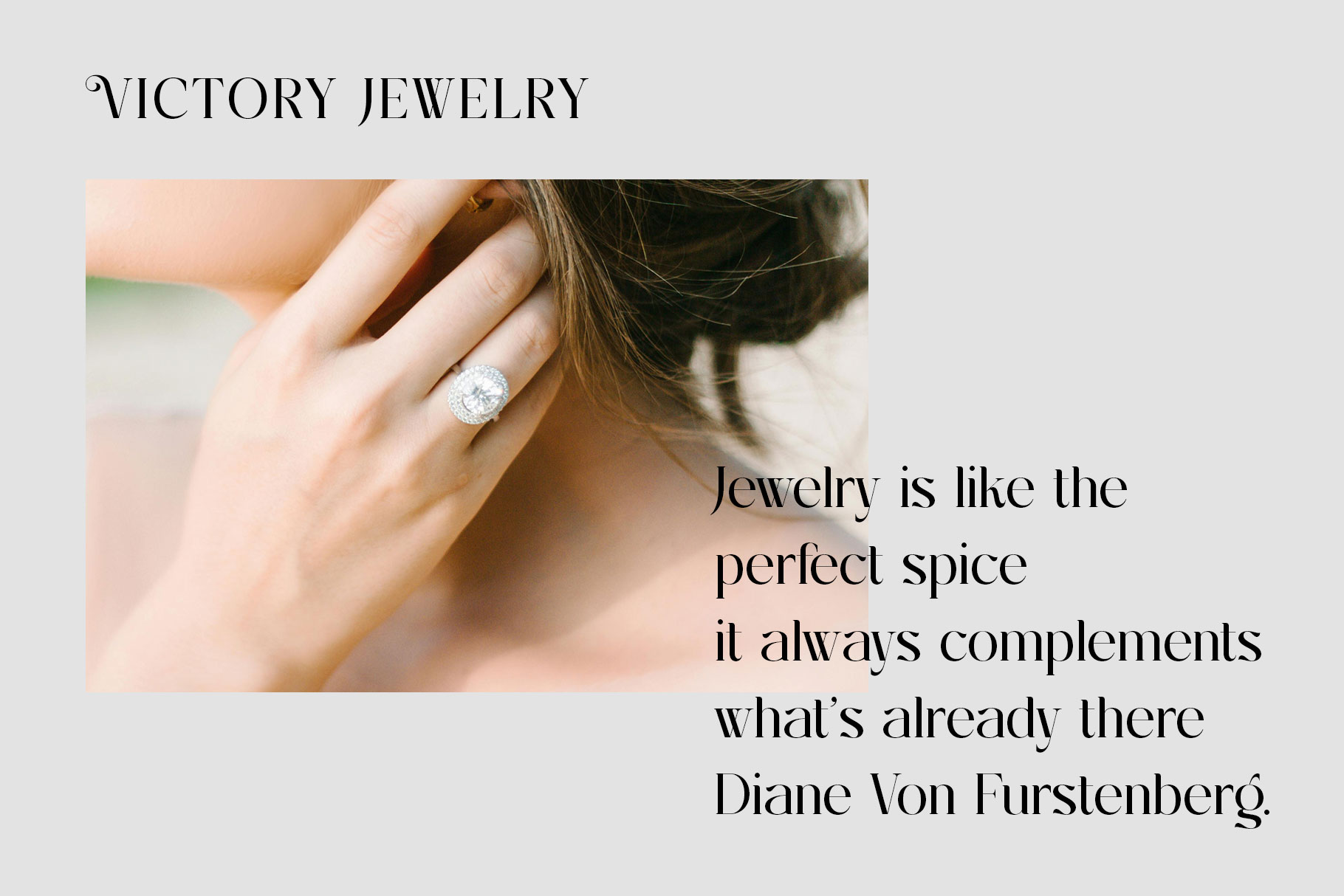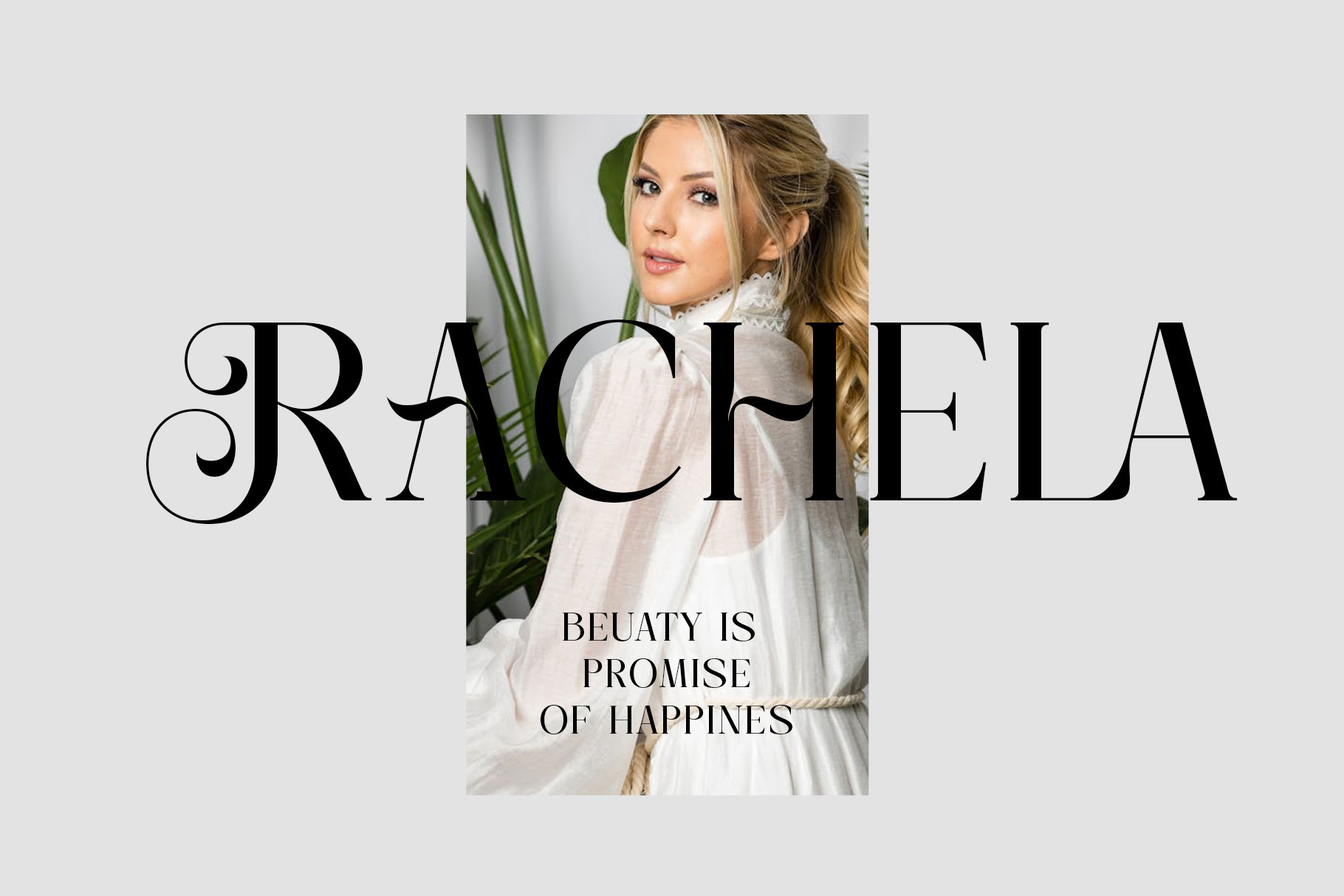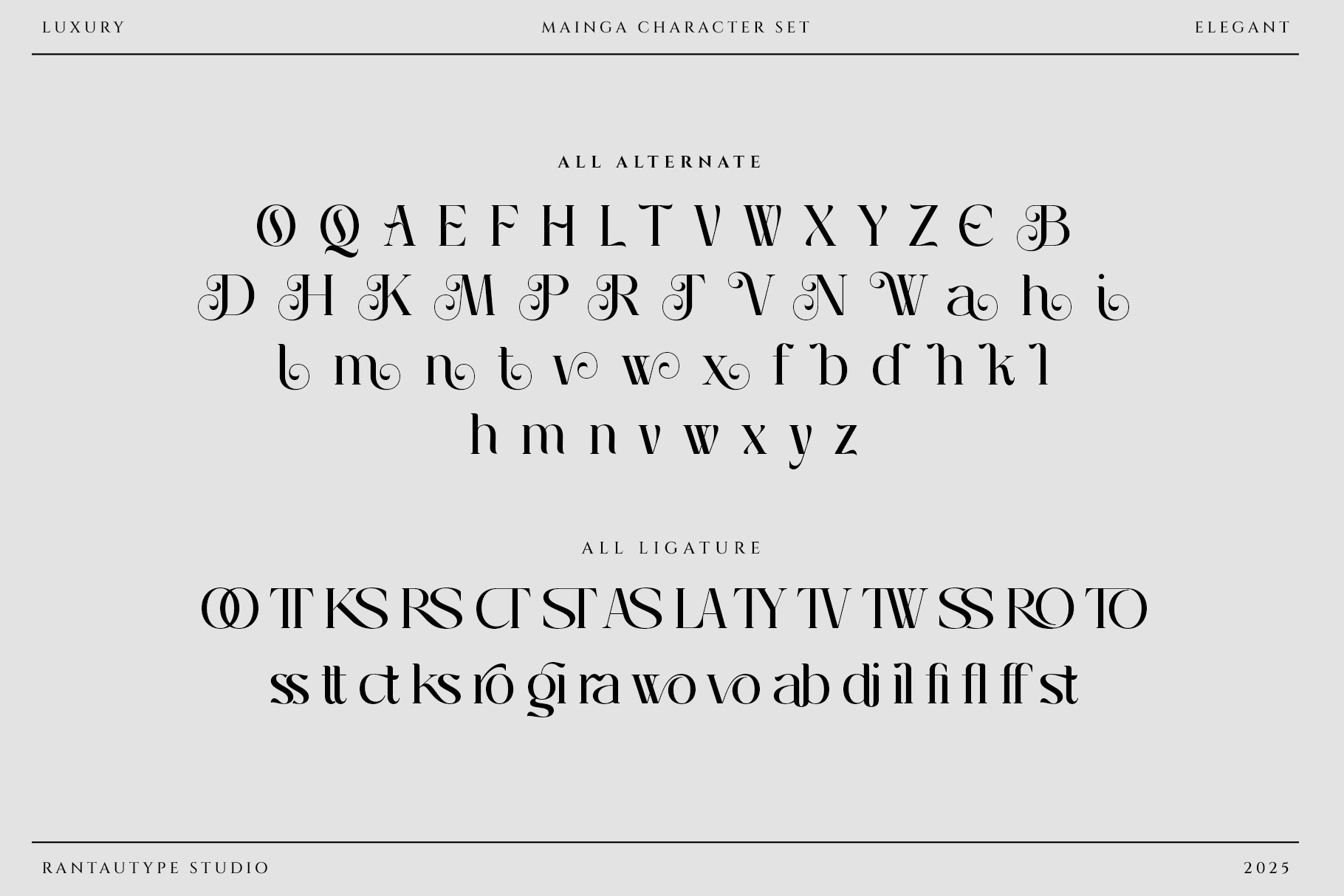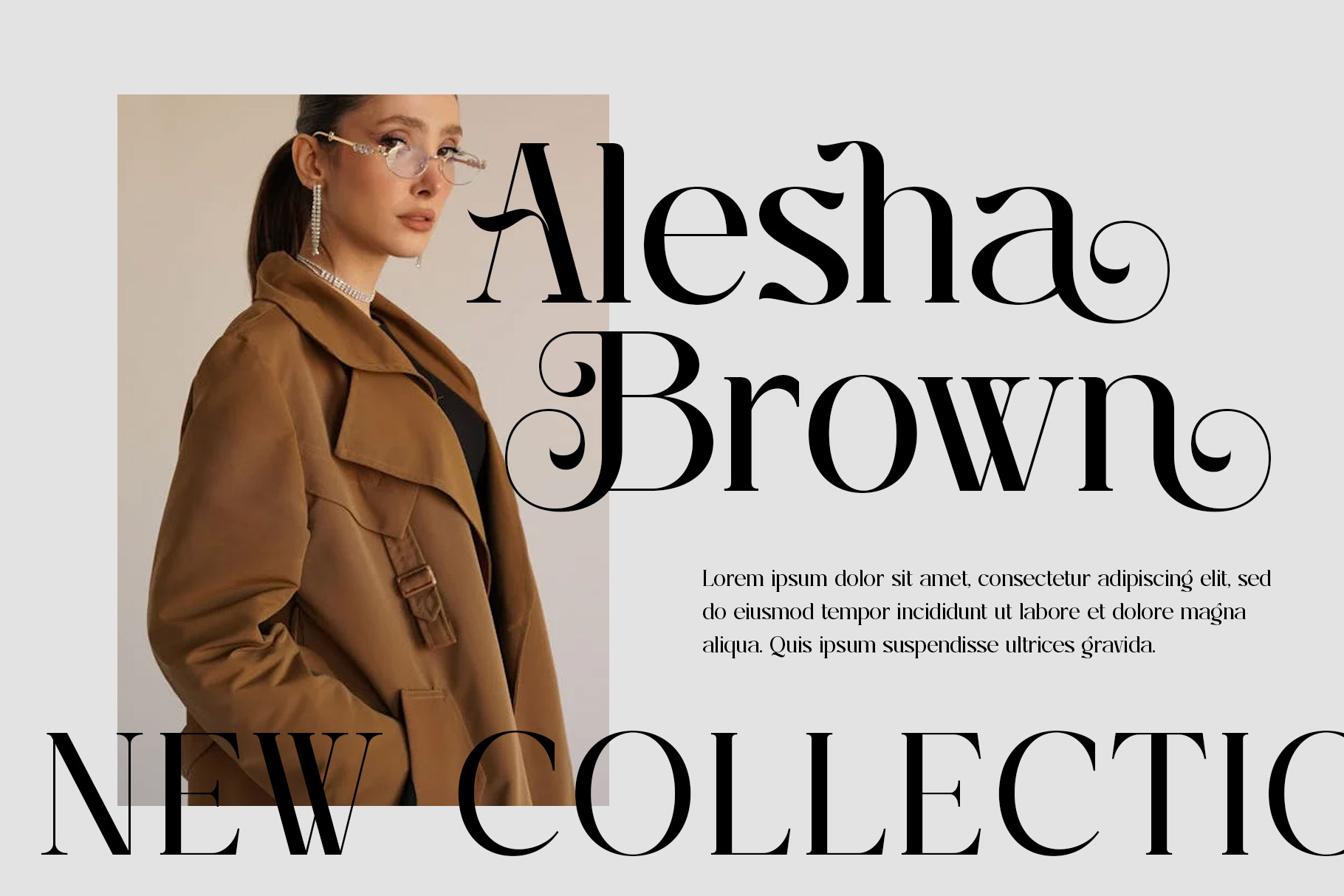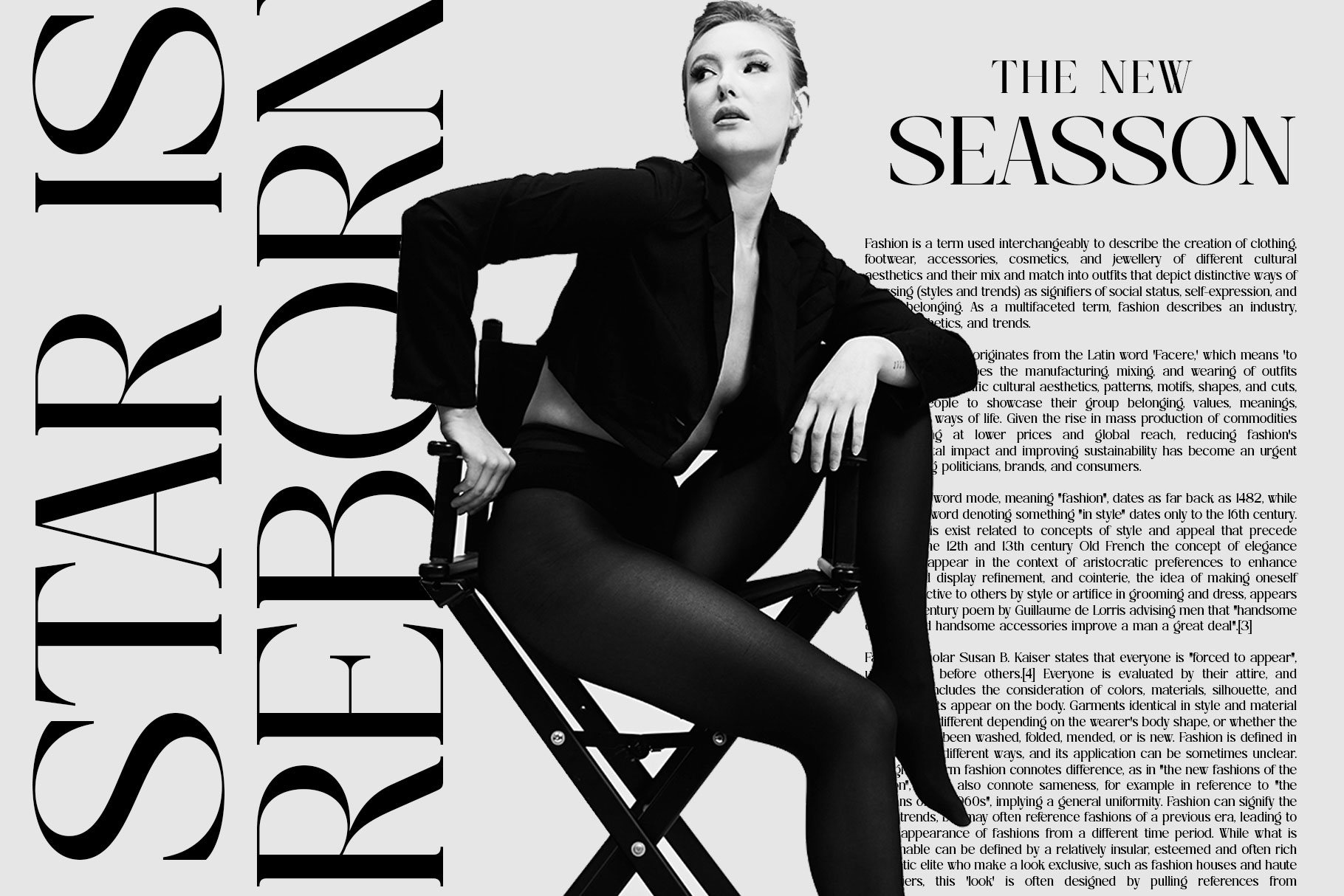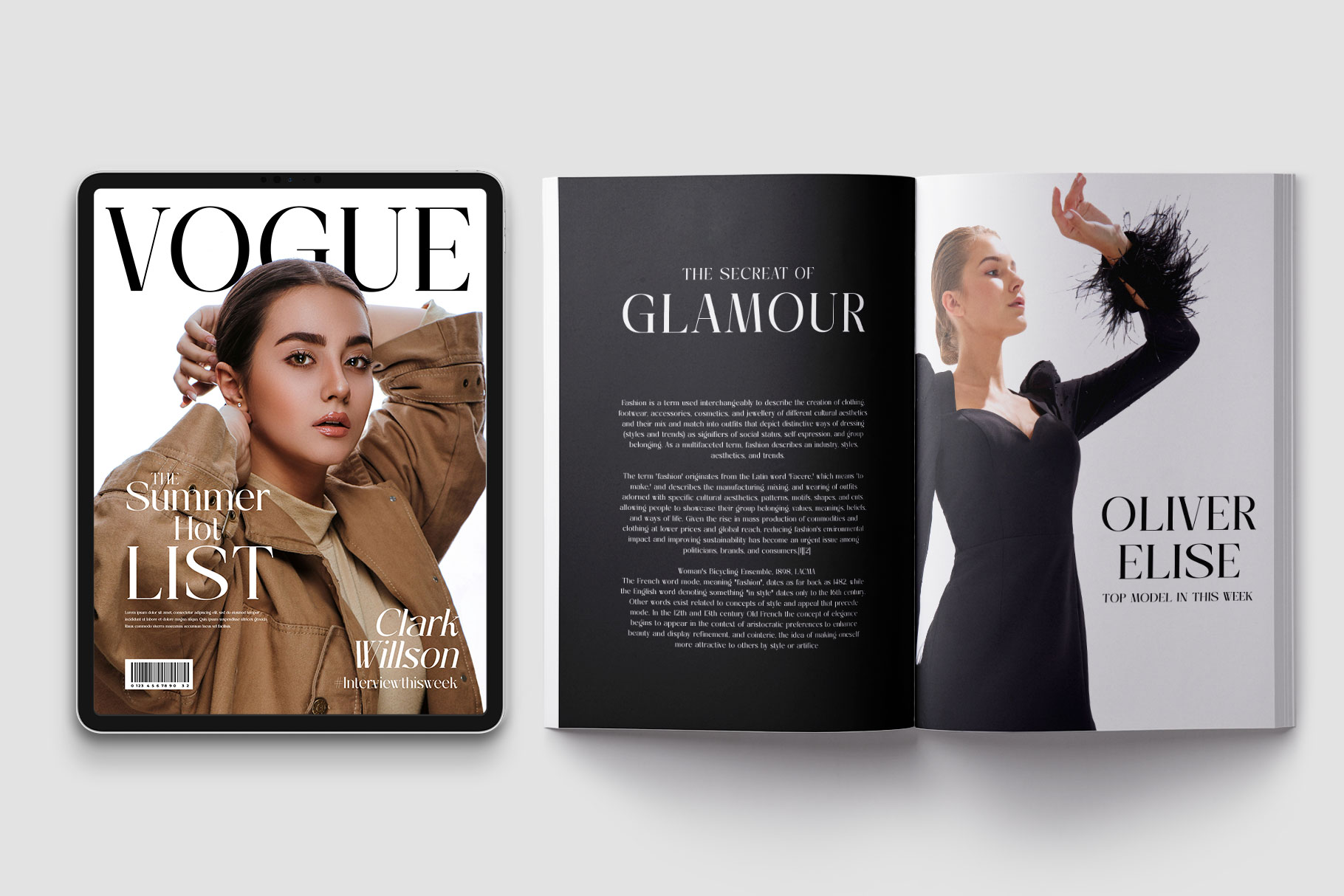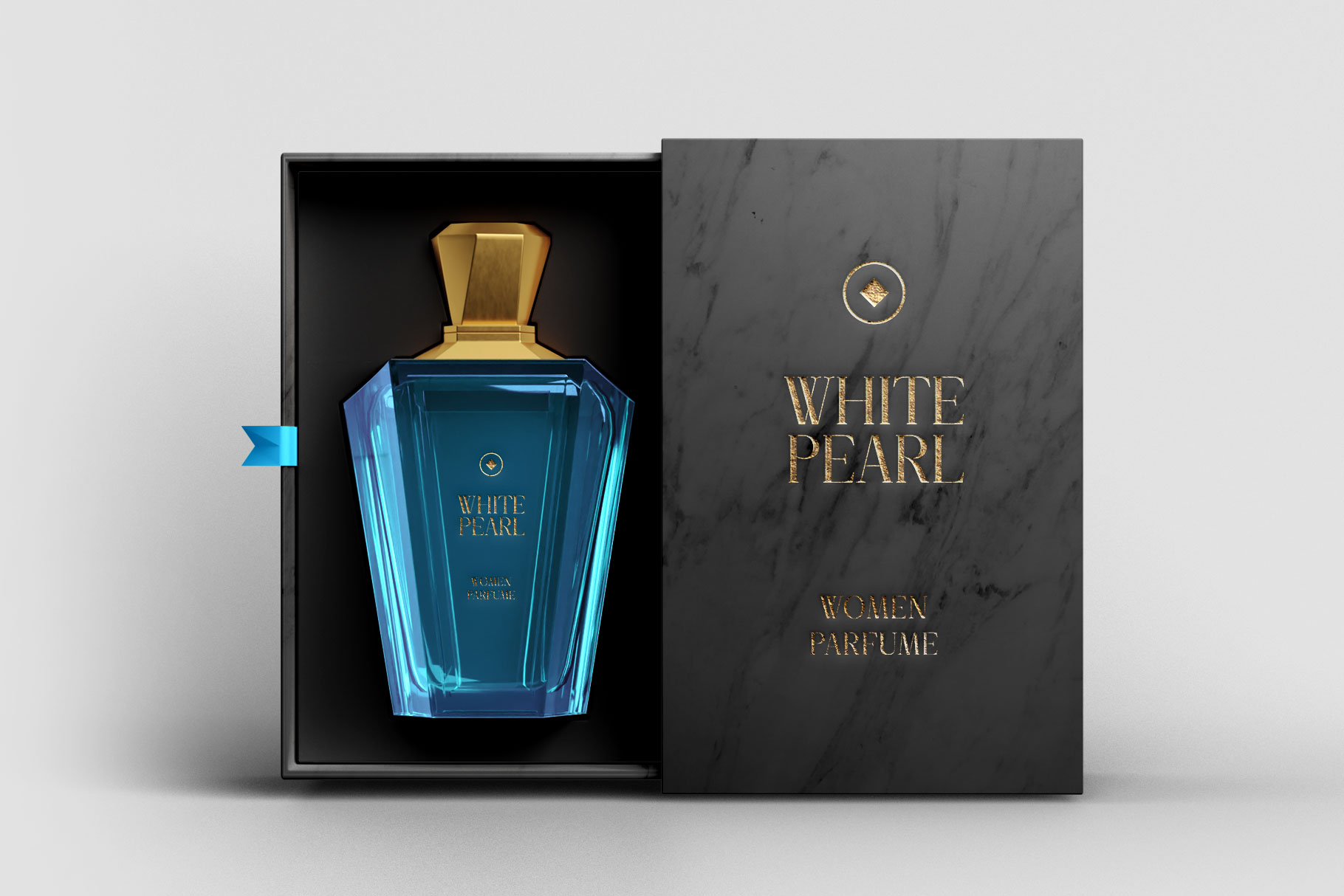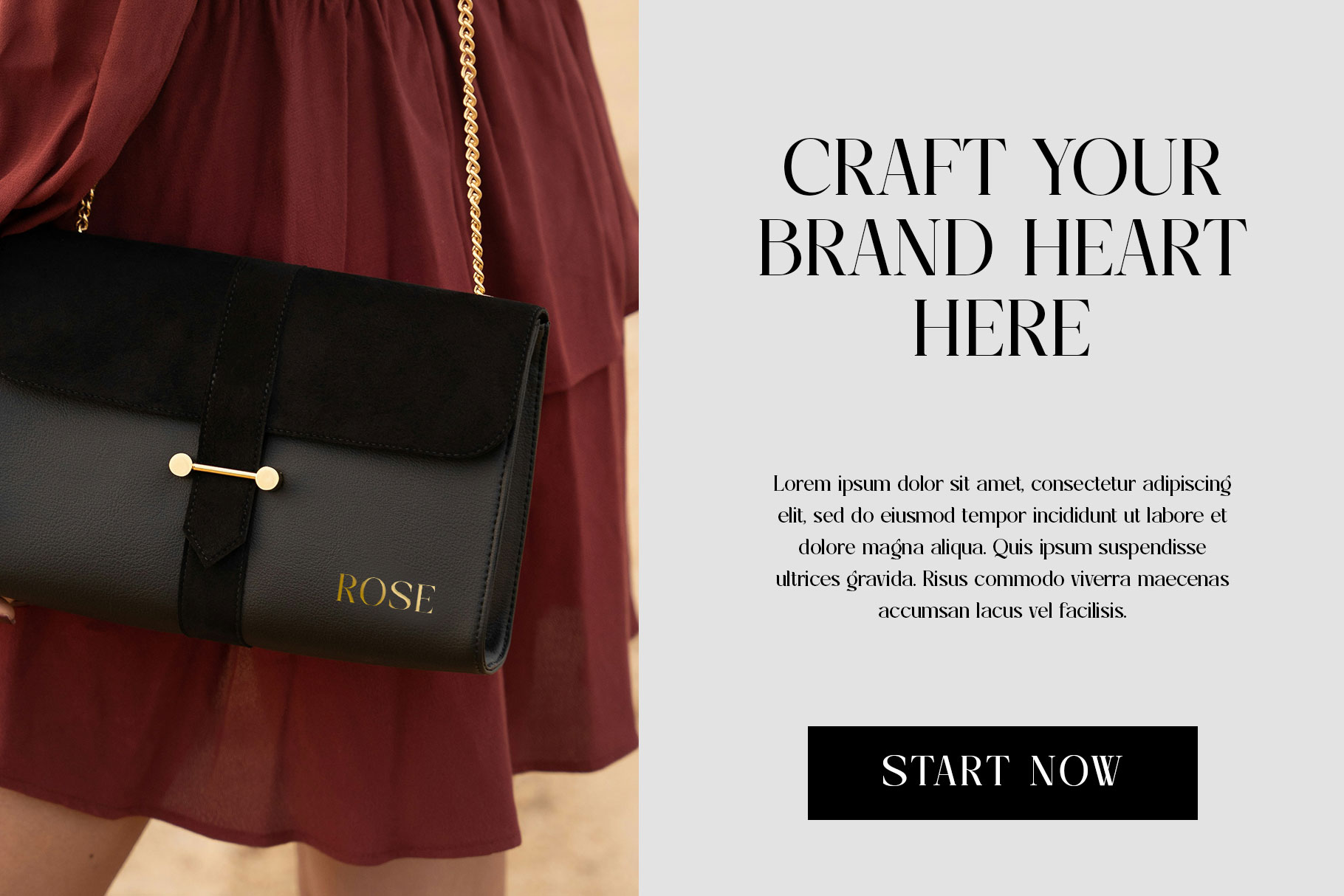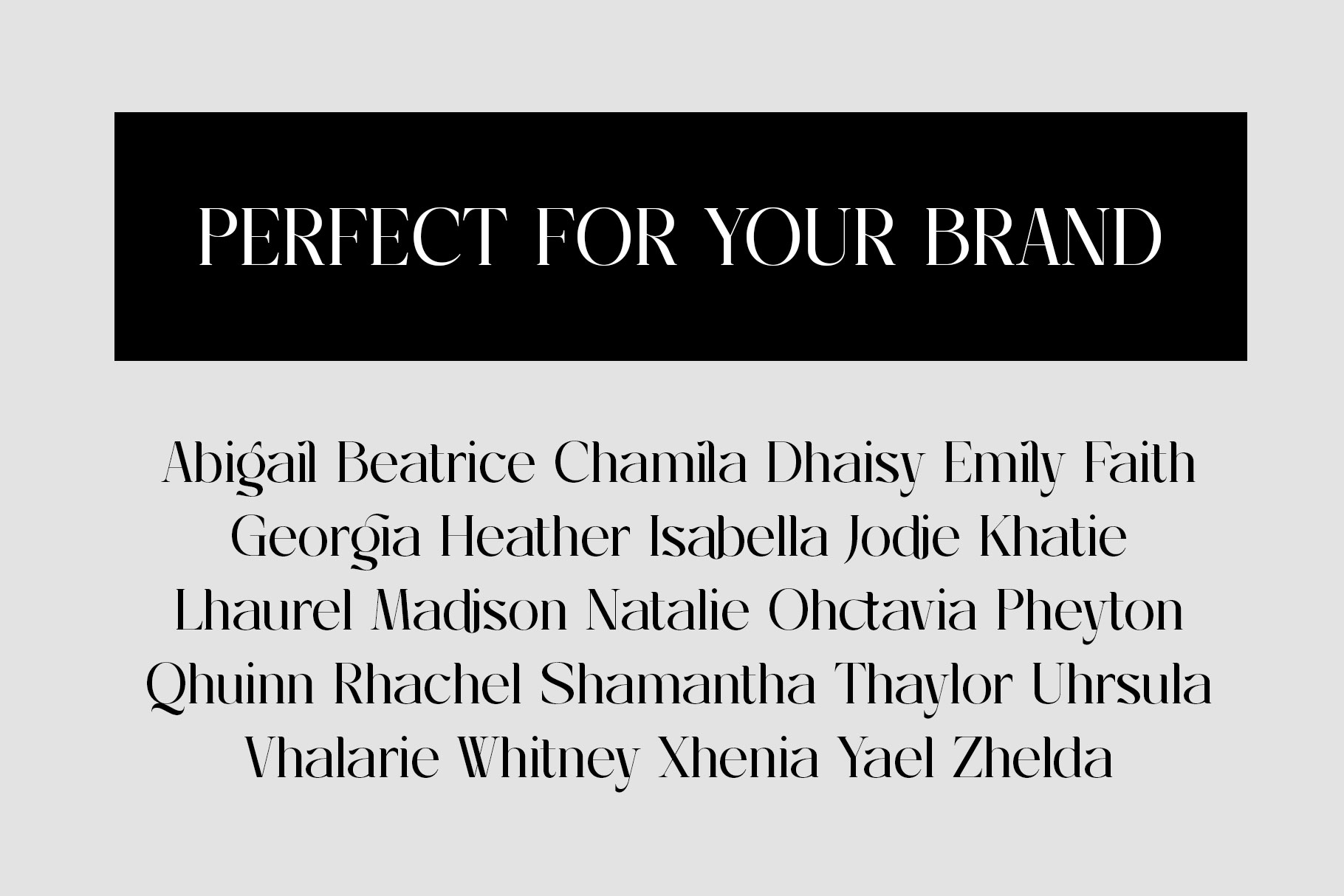
Mainga Luxury Classy Serif Font
Mainga is modern elegant serif font inspire by fashion trend visual design. Mainga is a perfectly choice for any creative endeavor, chic, lifestyle design such as logotype, advertisements, watermark on photography, stationery, branding project, display and magazine, invitation, corporate brand, product design, label, business project and many other project with luxury touch.